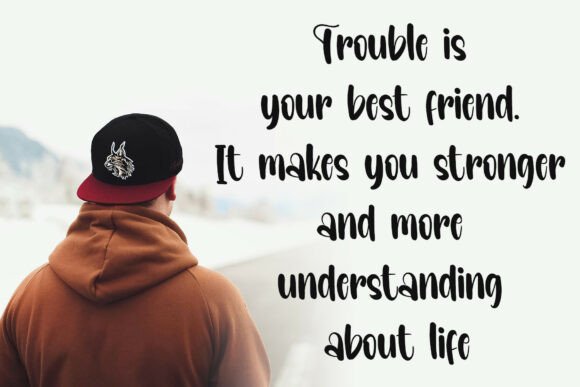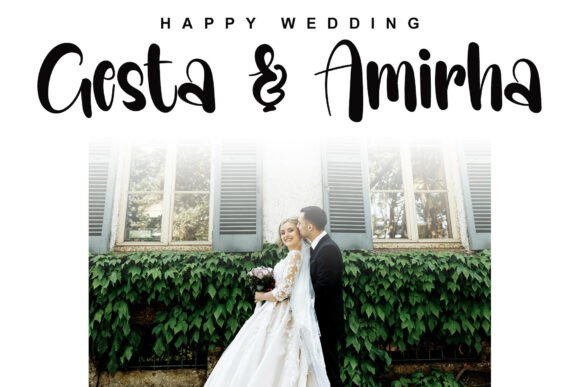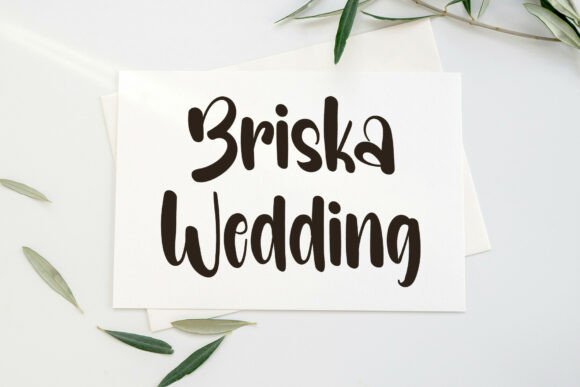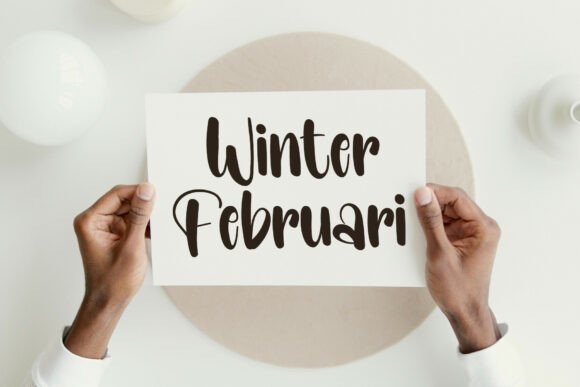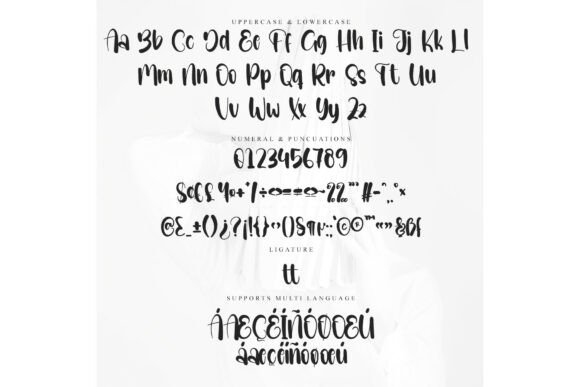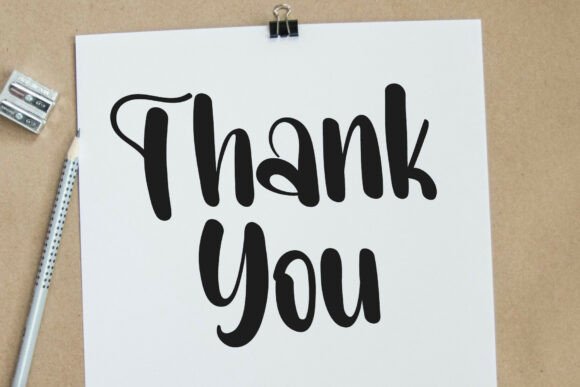
Frosted Display Font: Make Your Designs Shine with Bold Elegance
In the world of typography, a font can make or break the visual impact of a design. For projects that demand attention, creativity, and a touch of sophistication, the Frosted Display Font is an exceptional choice. This bold and captivating font is designed to command attention with its strong, distinctive letterforms, making it perfect for a wide range of applications, from branding and posters to digital designs.
The Power of Frosted Display Font
Frosted Display Font is more than just a typeface; it’s a statement. Its bold and powerful presence can instantly elevate your designs, adding a level of professionalism and elegance that’s hard to achieve with more mundane fonts. The font’s distinctive style blends seamlessly with creative and impactful designs, ensuring that your message is not only seen but also remembered.
Key Features of Frosted Display Font
- Bold and Captivating: The Frosted Display Font boasts strong, distinctive letterforms that capture attention and make a lasting impression.
- Versatile: Suitable for a variety of projects including branding, posters, digital designs, and more.
- Elegant and Sophisticated: Adds a touch of elegance and sophistication to any design, making it perfect for high-end projects.
- Easy to Read: Despite its bold nature, the Frosted Display Font remains clear and easy to read, ensuring your message is communicated effectively.
Applications of Frosted Display Font
The versatility of the Frosted Display Font makes it an excellent choice for various design projects. Here are some of the areas where this font truly shines:
Branding
For businesses looking to establish a strong brand identity, the Frosted Display Font can be a game-changer. Its bold and distinctive style can help create memorable logos, signage, and marketing materials that stand out from the competition.
Posters and Flyers
When it comes to creating eye-catching posters and flyers, the Frosted Display Font is an excellent choice. Its strong letterforms and elegant style ensure that your message grabs attention and leaves a lasting impression.
Digital Designs
In the digital realm, the Frosted Display Font can add a touch of sophistication and elegance to websites, social media graphics, and digital advertisements. Its clear and readable nature ensures that your message is effectively communicated across various digital platforms.
Tips for Using Frosted Display Font
To get the most out of the Frosted Display Font, consider the following tips:
- Pair with Simpler Fonts: For body text, pair the Frosted Display Font with simpler, more readable fonts to create a balanced design.
- Use for Headings: Utilize the Frosted Display Font for headings and titles to create visual hierarchy and draw attention to key information.
- Experiment with Colors: Don’t be afraid to experiment with different colors and gradients to enhance the visual impact of the Frosted Display Font.
The Frosted Display Font is a powerful tool for designers and crafters looking to add a touch of bold elegance to their projects. Its distinctive style, versatility, and readability make it an excellent choice for a wide range of applications. Whether you’re working on branding, posters, or digital designs, the Frosted Display Font is sure to make your designs shine with its bold and captivating presence.
Incorporate the Frosted Display Font into your next project and experience the impact it can have on your designs. With its unique blend of creativity and sophistication, this font is sure to become a staple in your design toolkit.